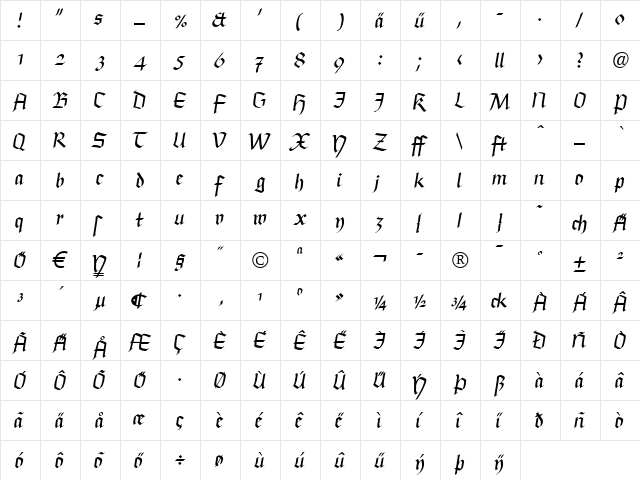
BuckinghamFraktur LT Regular
Design Context for BuckinghamFraktur LT Typeface
BuckinghamFraktur LT channels the dramatic heritage of Fraktur and Gothic scripts, bringing a sense of historical gravitas to any design. The delicate stroke weight brings airiness and refinement to layouts.
Well-suited to band logos, craft beer branding, tattoo lettering, and heritage-themed identities.
Font Pairing: Pair with a clean neutral sans-serif for body copy to let BuckinghamFraktur LT's character lead without overwhelming the composition.
Pro Tip: Use BuckinghamFraktur LT sparingly at large sizes. Even a single word set in blackletter can define the visual register of an entire design.